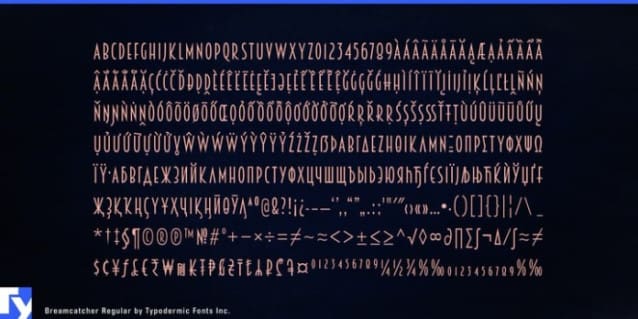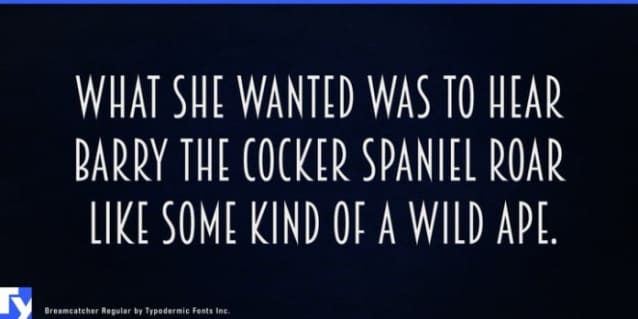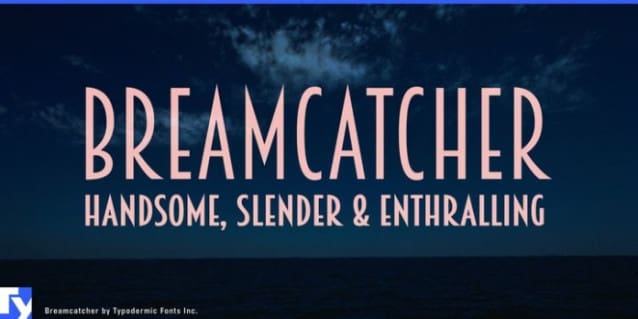
Breamcatcher Font
Breamcatcher Font is a svelte, Art Deco typeface inspired by the piano sheet music for “With Every Breath I Take” which was featured in the Bing Crosby/Kitty Carlisle musical comedy film, “Here is my Heart” in 1934. Compact sans-serif typefaces can look salient, but Breamcatcher is a slow jam. Loose spacing and lazy strokes will give your message a breezy, reassuring voice—and a spritz of romance. OpenType fractions, numeric ordinals and lots of currency symbols are included. Breamcatcher is available in Regular, Italic and Bold-Italic styles. Most Latin-based European, Vietnamese, Greek, and most Cyrillic-based writing systems are supported, including the following languages.